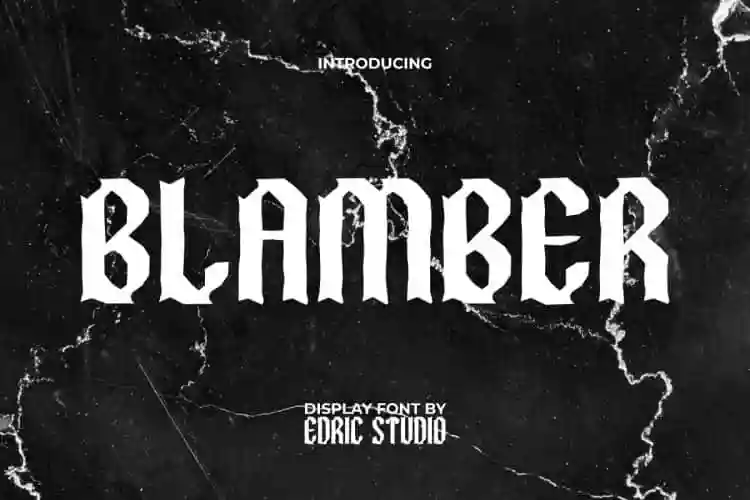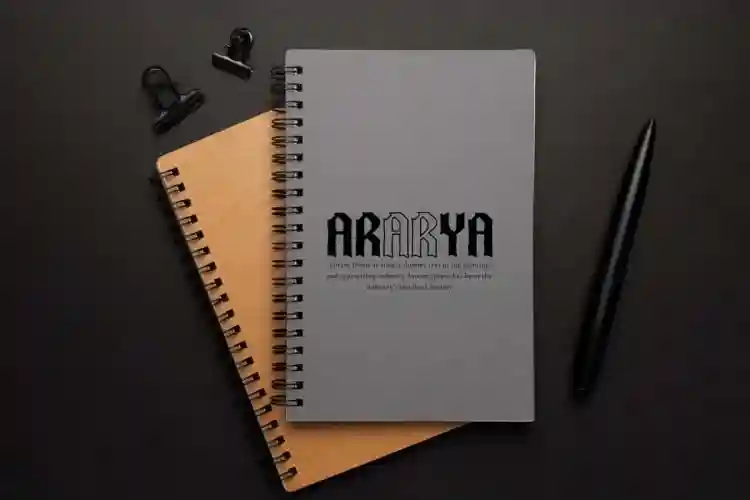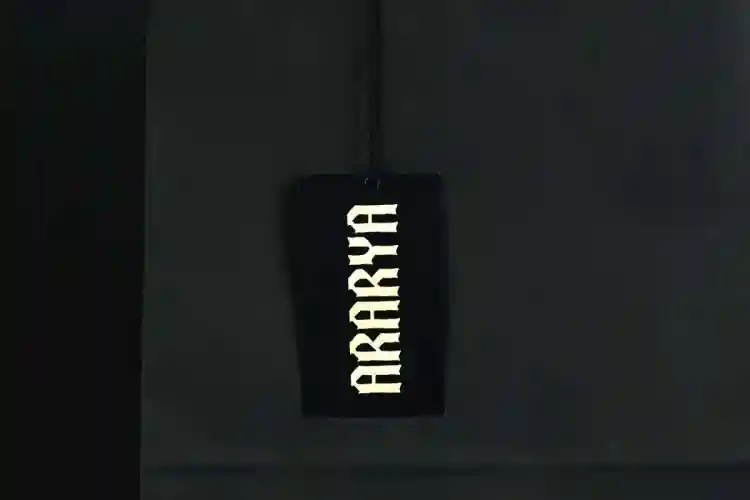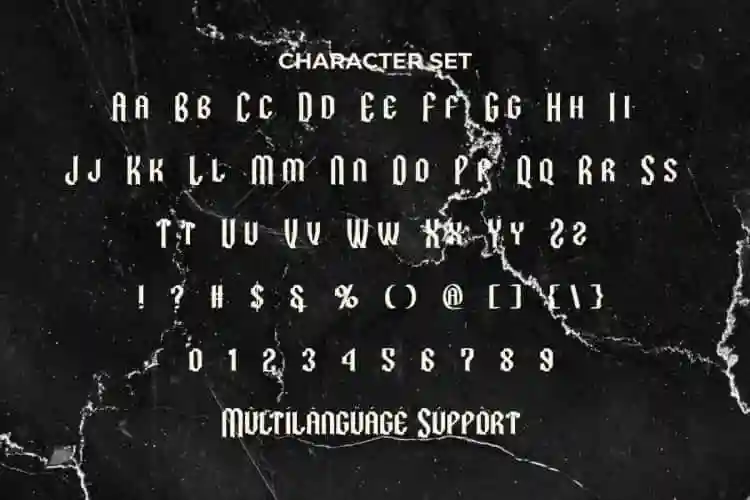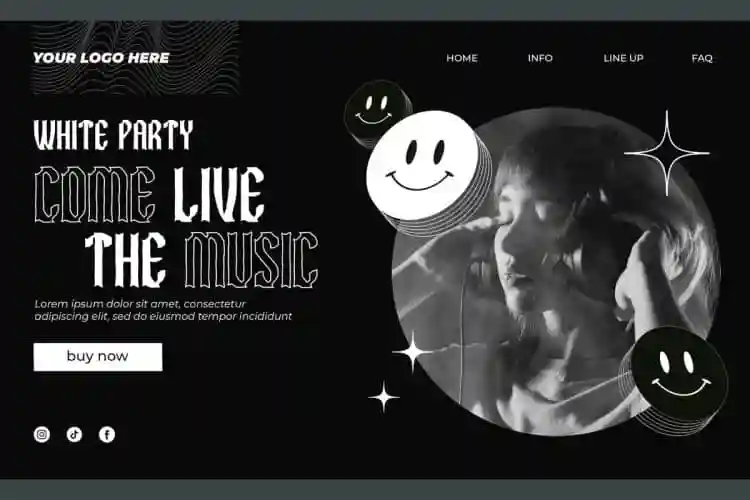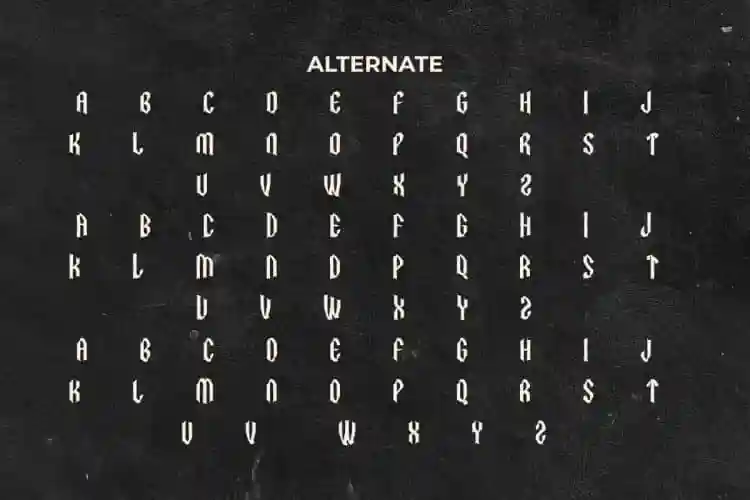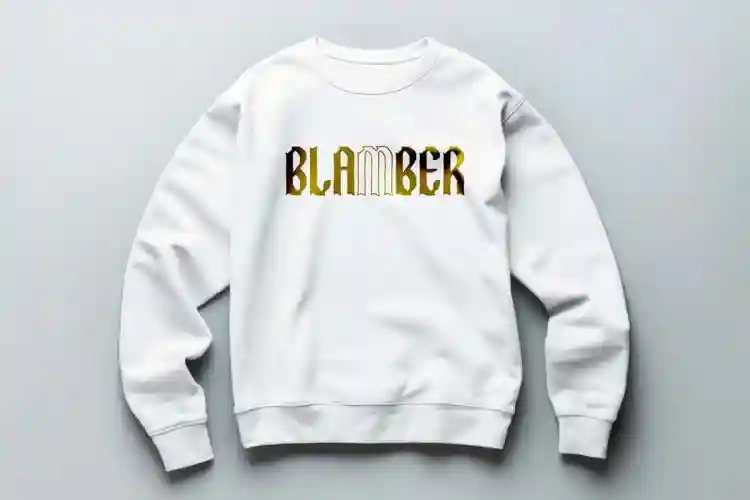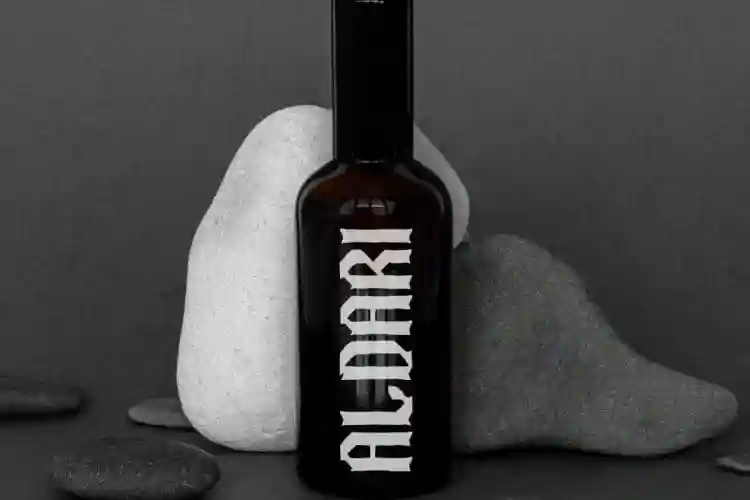
Blamber Font is a blackletter, grunge and classic display font based on the gothic style made simpler and more modern with the support of stylized alternate characters to give more composition. Inspired by the cover of rock ‘n’ roll music in the mid-1960s. Suitable for cover designs, websites, etc. It will support your unlimited creation to present the desired font appearance.
Blamber Font includes a complete set of ALL CAPS for upper and lower case letters with different sizes from each other as a differentiator, Numbers, Punctuation, Symbols and full of Alternative characters. Each letterform handcrafted, giving this font an authentic and organic feel that sets it apart from other Blackletter fonts. Use it for clothing brand, music festival, and more.